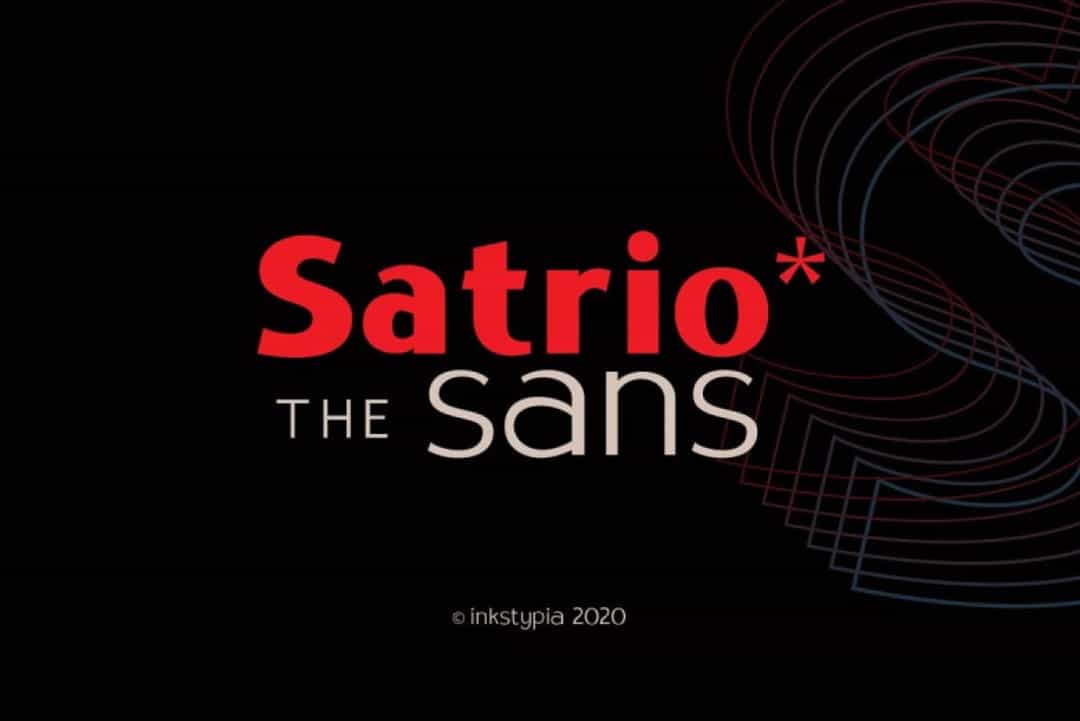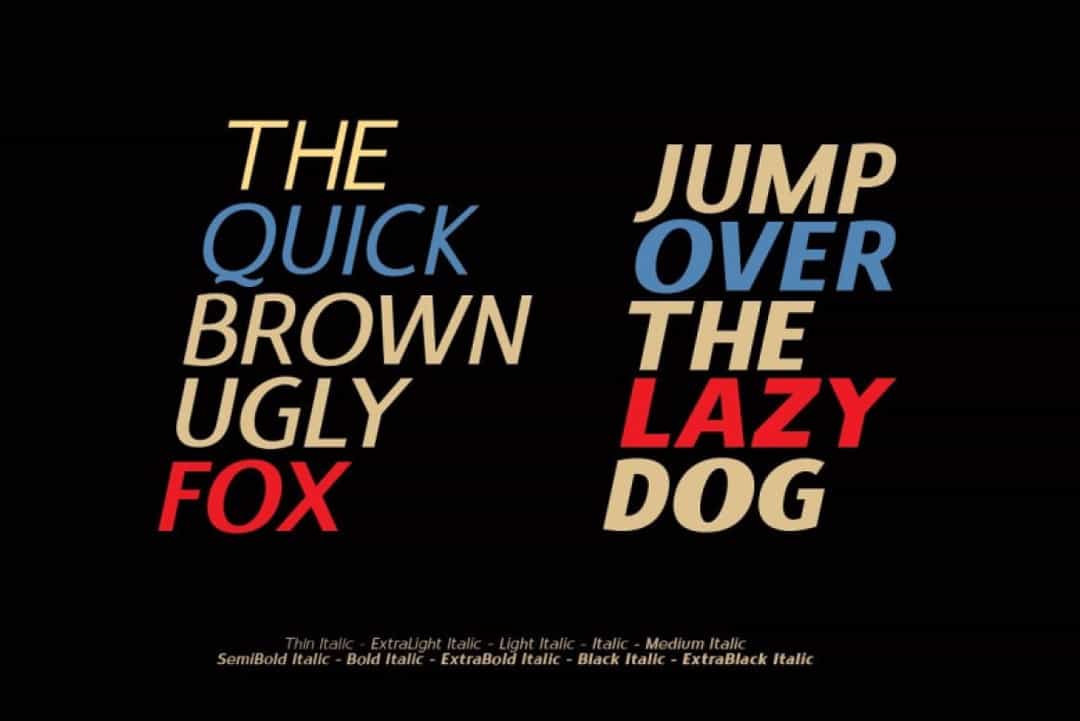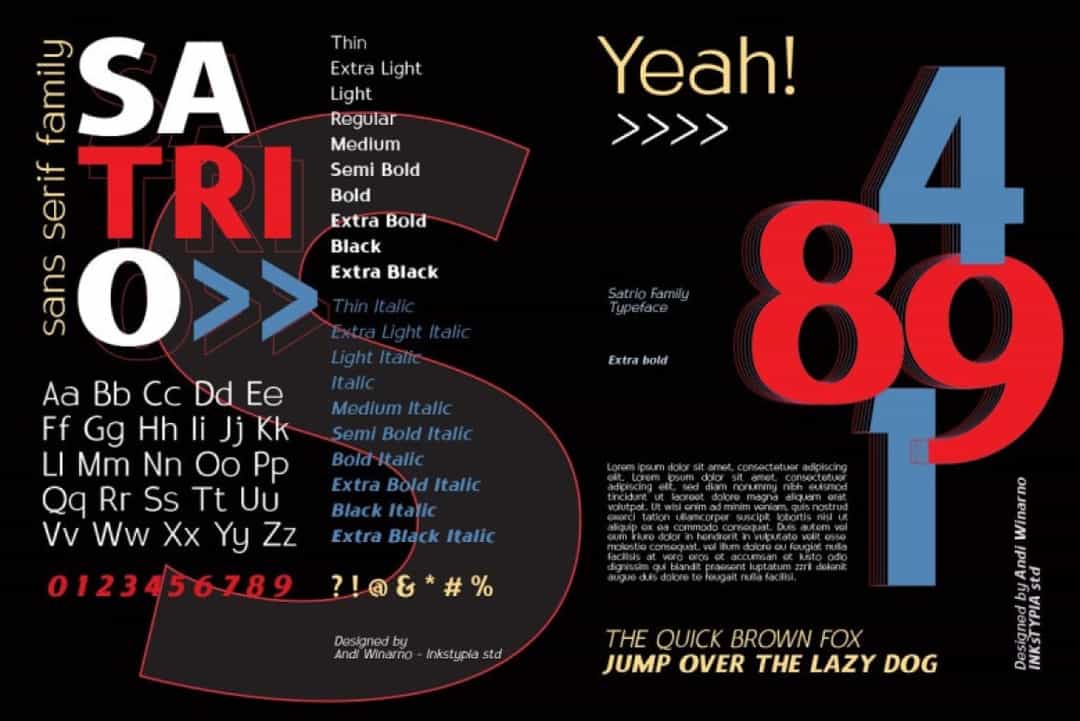
Satrio, an elegant classic Sans serif font family, can be used for long texts or large headings, making it perfect for use as headings. Available in both Normal and Slant styles with 10 thickness options (Thin to Black), Satrio can also be used in label design, logo creation and book layout as well as poster applications among many other uses.